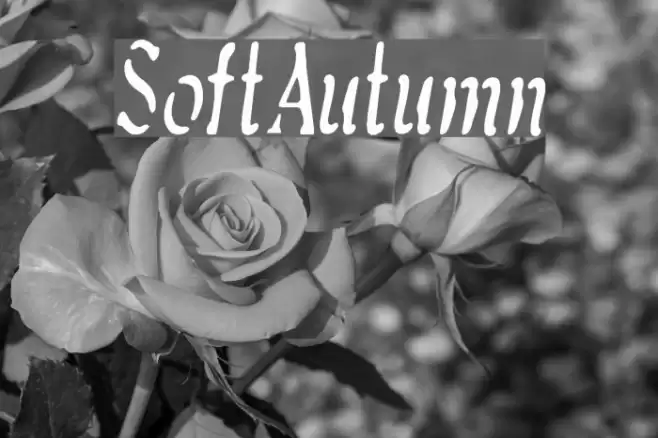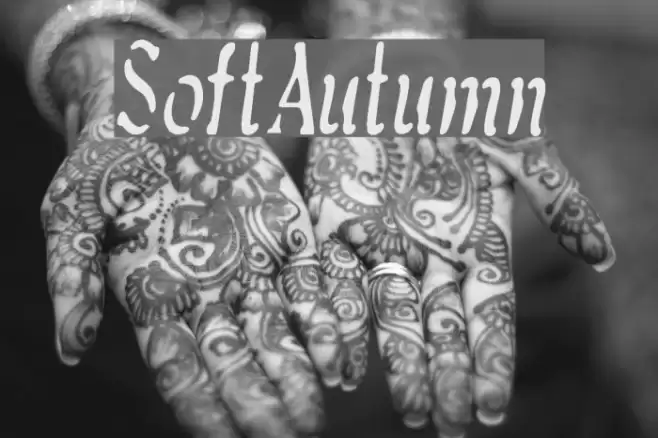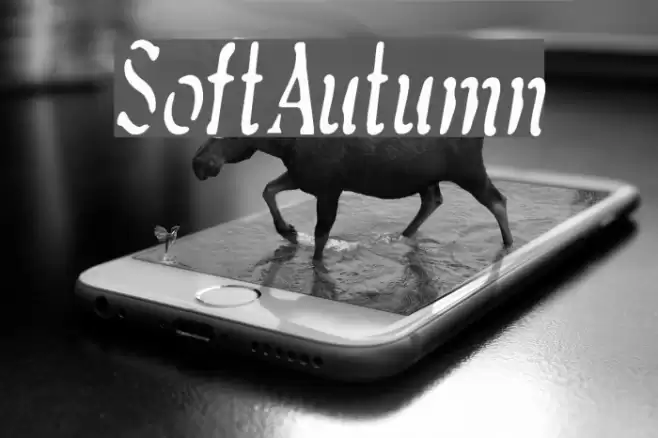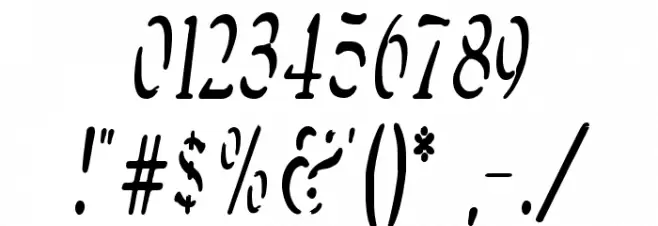
SoftAutumn Font
SoftAutumn Description
This font features a unique blend of elegance and flair, characterized by its italicized and slightly slanted letterforms. The strokes are moderately thick, with a noticeable contrast that adds a dynamic feel to the text. The uppercase letters are bold and commanding, while the lowercase letters maintain a consistent flow, enhancing readability. The numerals are distinct and well-proportioned, complementing the overall style. Special characters are creatively designed, adding a touch of sophistication. This font's artistic nature makes it suitable for creative and expressive projects.
An elegant, italicized font with bold strokes and artistic flair from Script fonts.